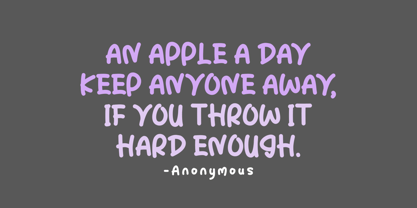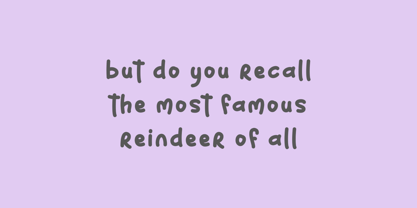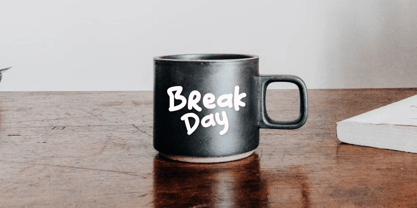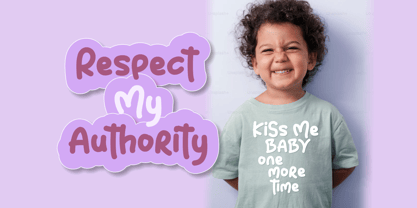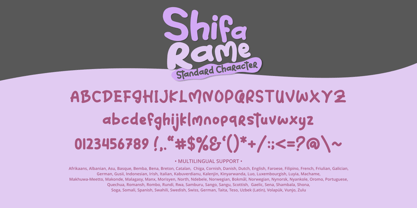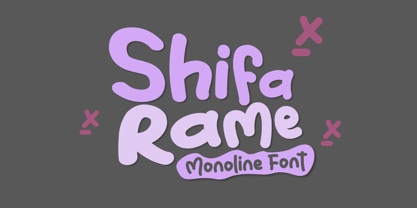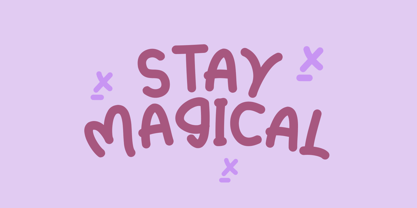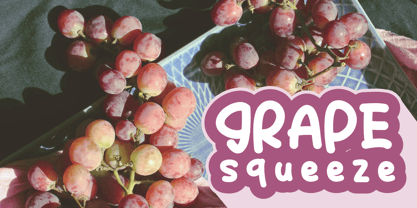
Shifa Rame
by Mabhal Studio
The Shifa Rame Font Family was designed by Abdullah Mabhal and published by Mabhal Studio. Shifa Rame contains 1 styles. More about this family
Shifa Rame is a playful monoline font with a cute and bubbly personality. Its rounded, hand-drawn characters create a friendly and approachable feel, making it perfect for a wide range of creative projects. Whether you are designing for kids, creating fun t-shirts, branding colorful products, or crafting unique social media quotes, this font adds a joyful touch. It includes uppercase and lowercase letters, numbers, punctuation, and multilingual support for global versatility.